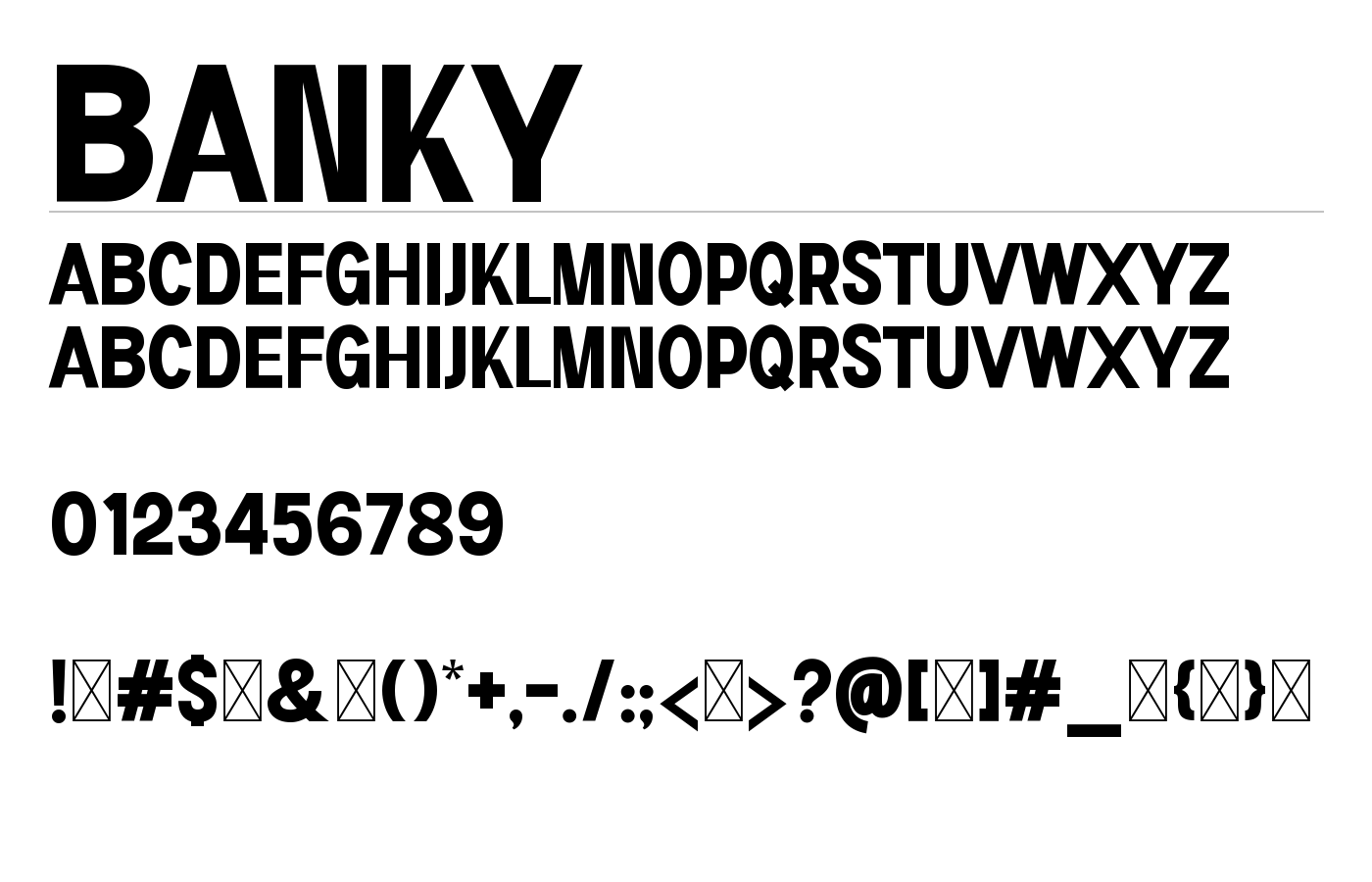
Banky Font is a bold, condensed sans serif typeface with a strong, modern presence. Its clean, geometric letterforms and solid weight make it ideal for impactful headlines, logos, and branding where a confident and contemporary look is desired. This font works well in design contexts that require clear readability combined with a powerful, stylish aesthetic.
Banky Font